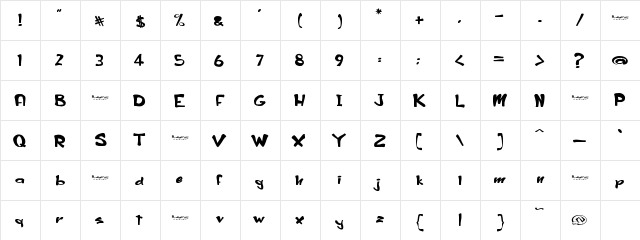
Badgery Rcwf Font Preview
Badgery Rcwf
Design Context for Badgery Typeface
Badgery is a composed and adaptable typeface that performs quietly and consistently across a wide range of design contexts.